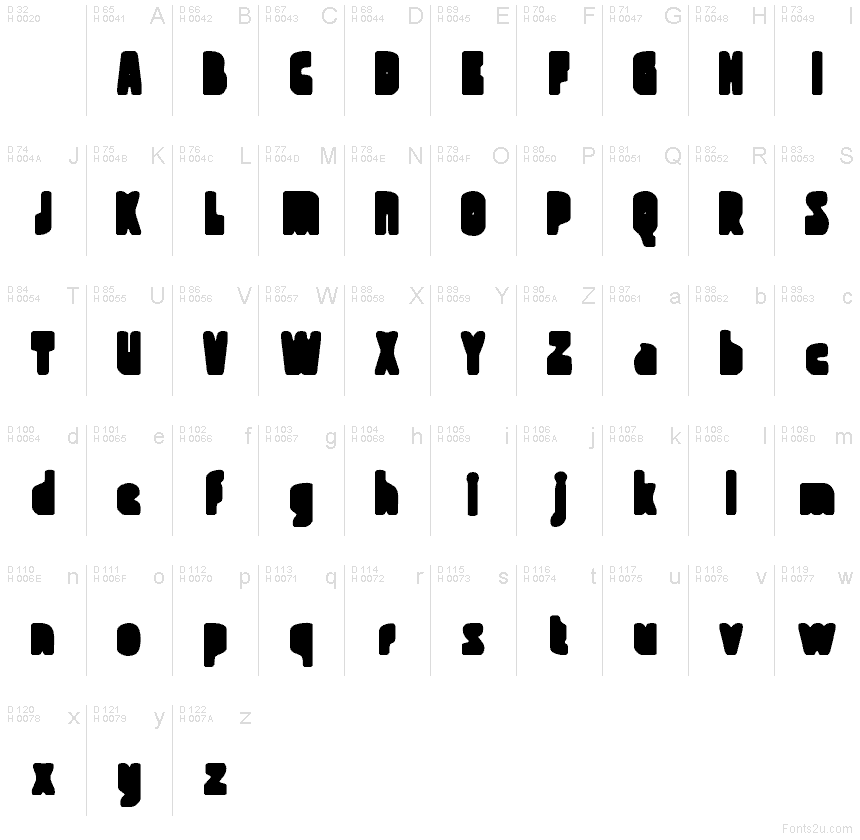
CS Boswell Drawn font by Craft Supply Co. is a free retro display font built around plush, hand‑drawn forms. Each letter swells like ink-soaked felt, with soft, blobby curves and tight counters that keep the mass feeling lively, not leaden. As part of the CS Boswell family, it leans into a playful, 70s-flavored warmth—chunky strokes, pillowy terminals, and a rhythm that feels both bouncy and confident.
Using CS Boswell Drawn, headlines pop with friendly heft that photographs well at large sizes. This free font shines on posters, drink or snack packaging, record sleeves, cafe menus, event flyers, and sticker merch. Its rounded density groups words into bold shapes, helping short phrases read fast and loud. Pair it with a light, neutral grotesk for body copy, or track it slightly open for a breezier, sun-faded vibe.